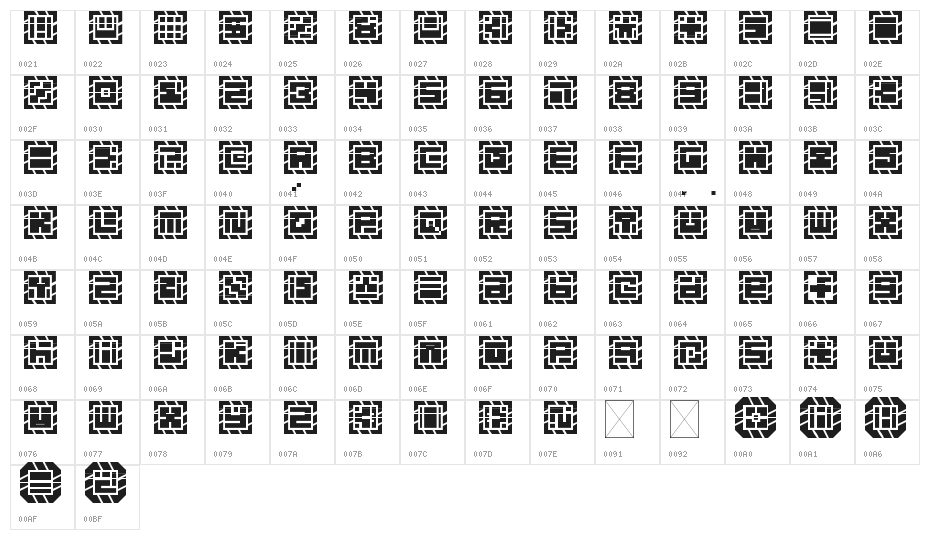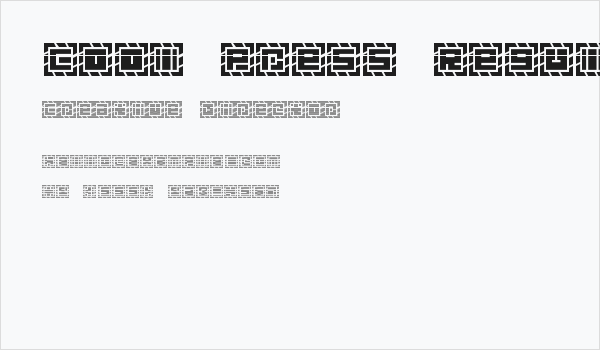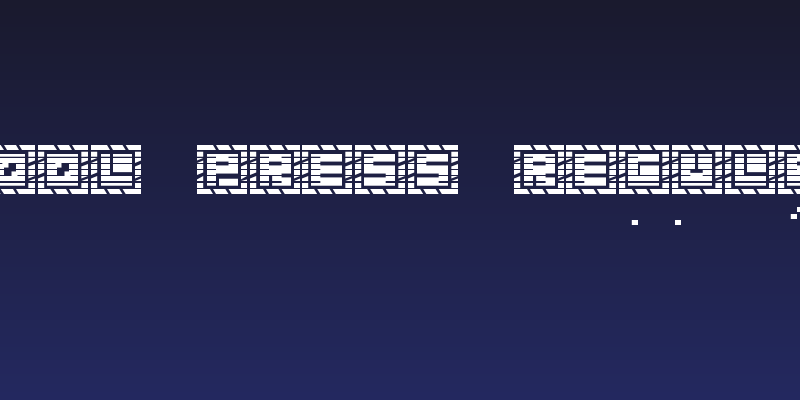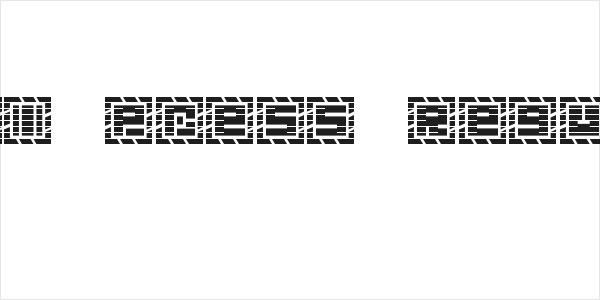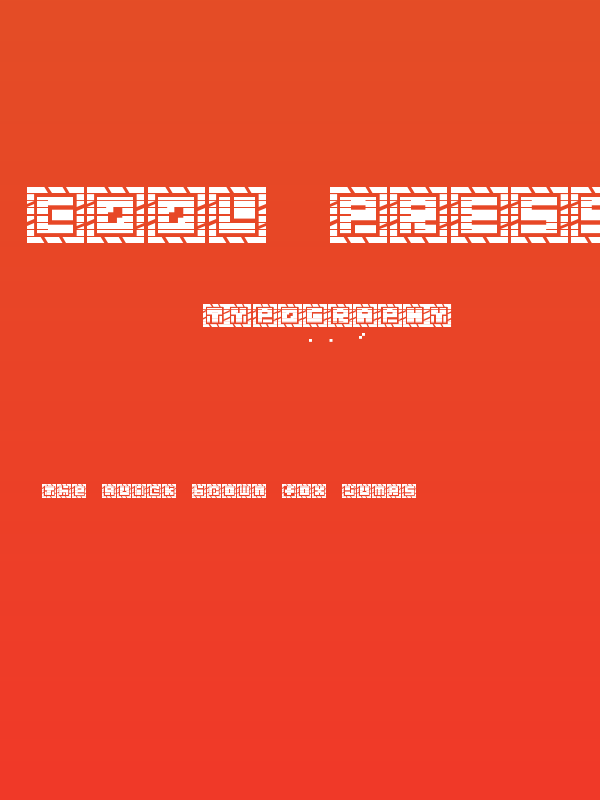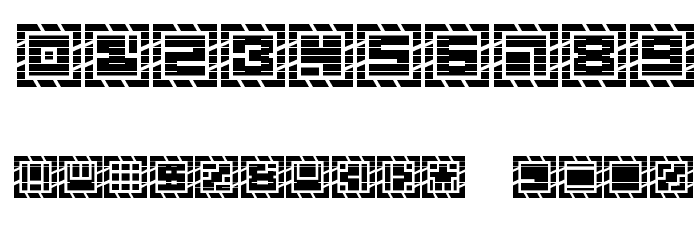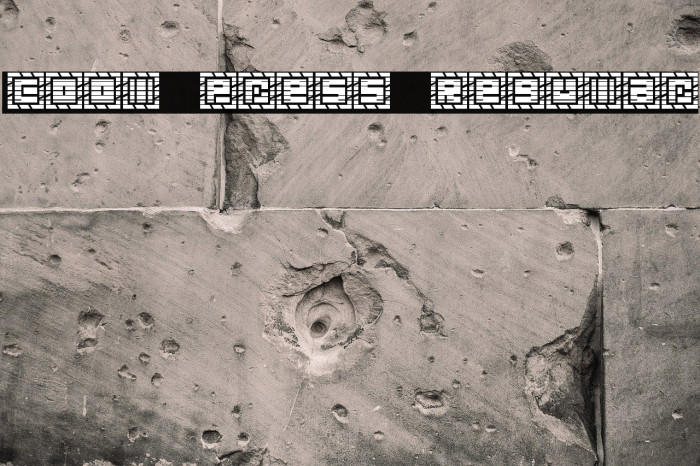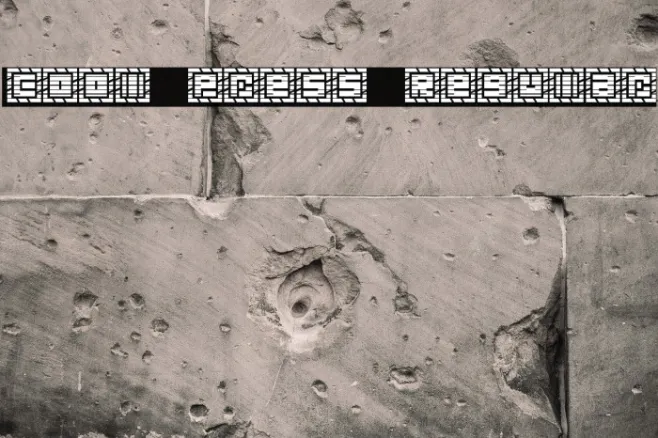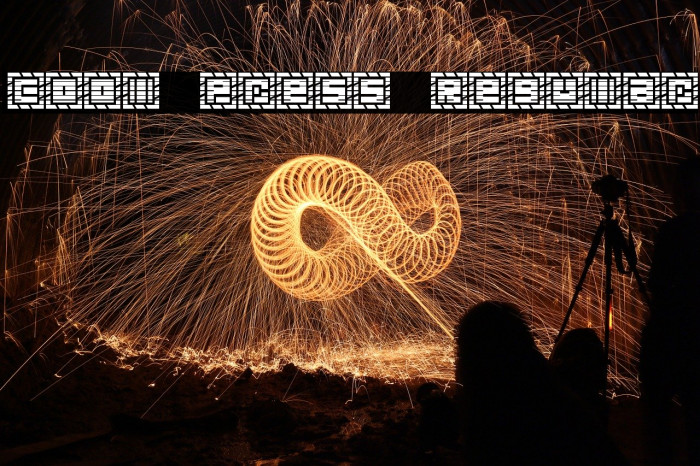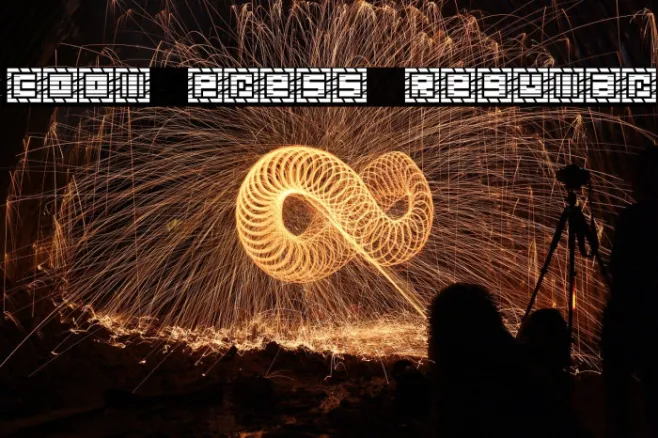
Cool Press Regular Font
Cool Press Regular Description
This font features a highly decorative and geometric style, characterized by intricate patterns and a maze-like appearance. Each character is composed of a series of interlocking lines and shapes, creating a visually complex and bold aesthetic. The design is reminiscent of modern art deco, with a strong emphasis on symmetry and structure. The font's unique style makes it stand out, offering a striking visual impact that is both artistic and architectural. Its intricate design requires careful consideration in use, as it may affect readability in smaller sizes.
| Proposed Projects | Ideal for artistic posters, album covers, branding projects, and any design requiring a bold, decorative statement. |